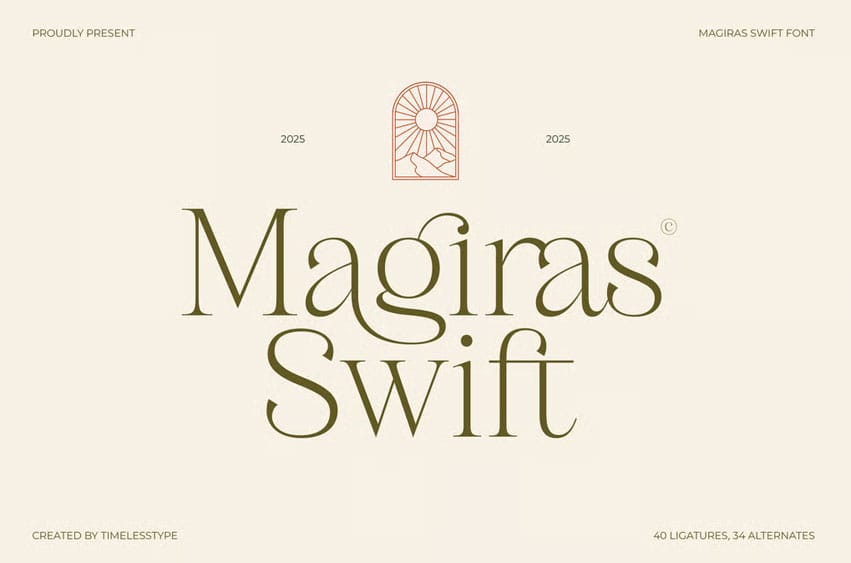
Magiras Swift Font is a refined modern serif designed with elegant curves, graceful contrast, and a distinctly high-end editorial feel. Its letterforms balance sophistication and simplicity, making it perfect for luxury branding, beauty packaging, fashion magazines, boutique logos, and premium visual identities. Every curve is intentionally crafted to look smooth, confident, and timeless, giving your designs a polished upscale character.
With 40 ligatures and 34 stylistic alternates, Magiras Swift offers powerful flexibility for creating custom headlines, expressive wordmarks, and elevated typographic compositions. Whether used for minimal layouts or rich artistic branding, this font delivers a clean, aesthetic, and effortlessly stylish presence in every project.